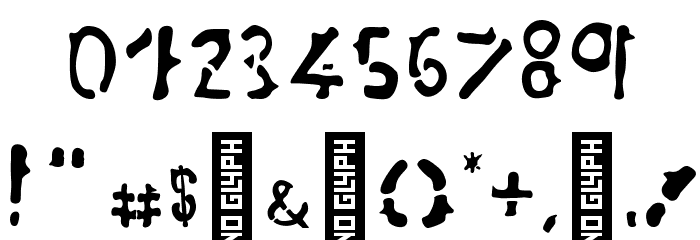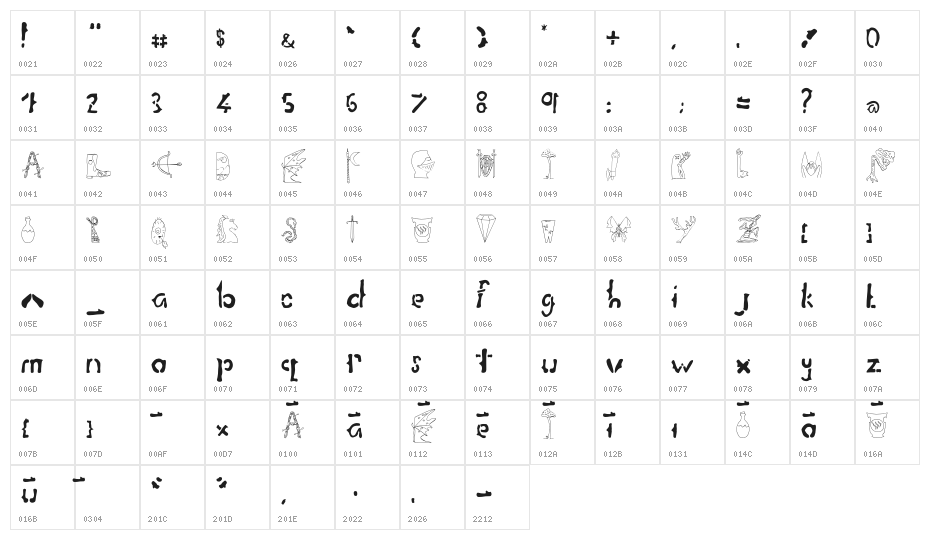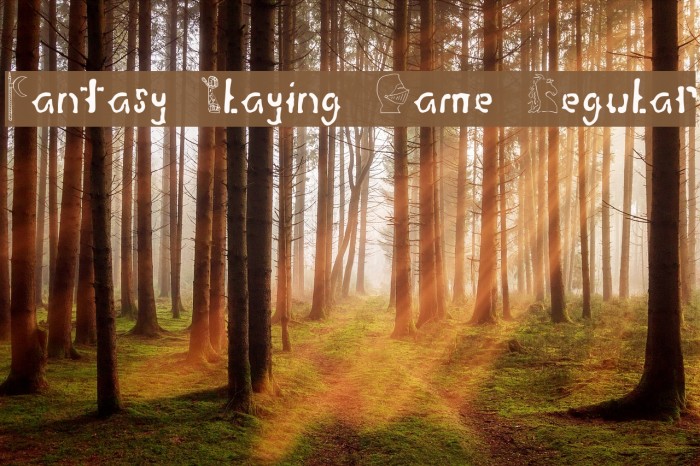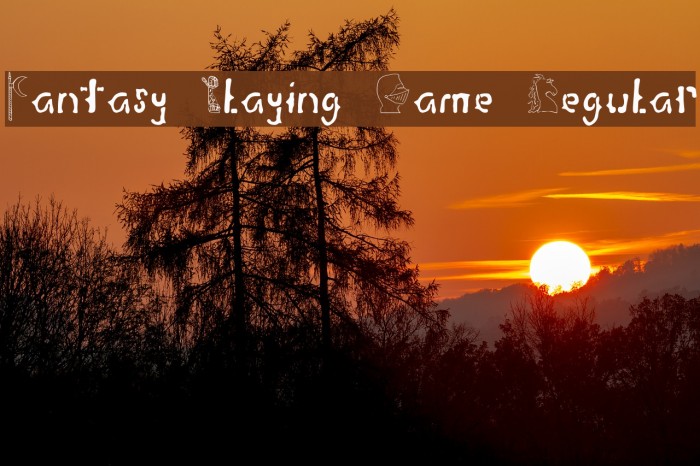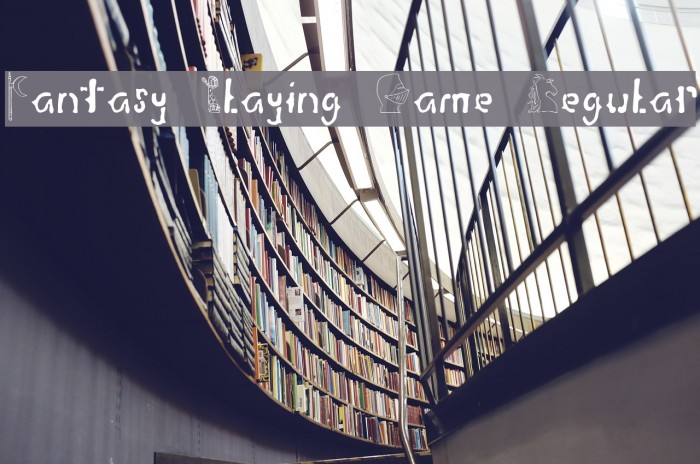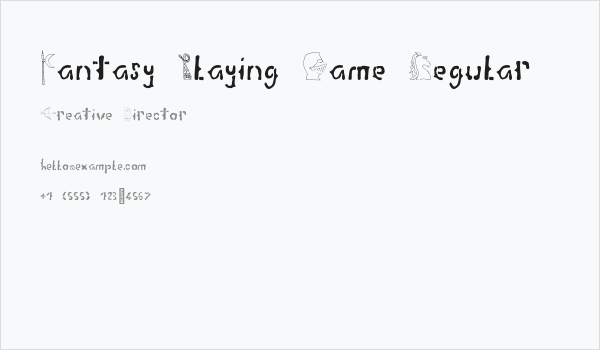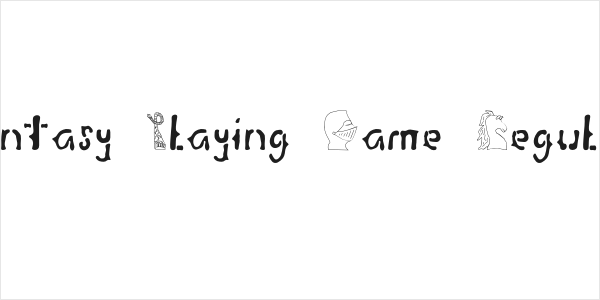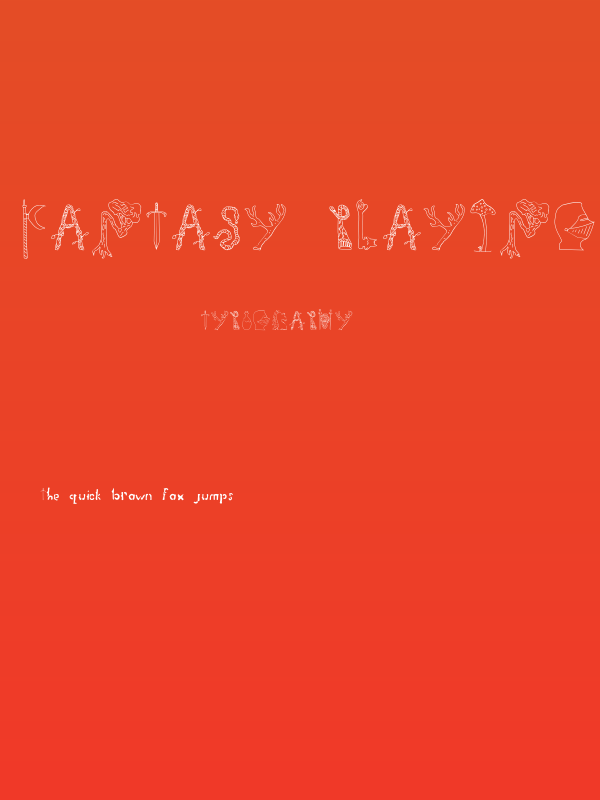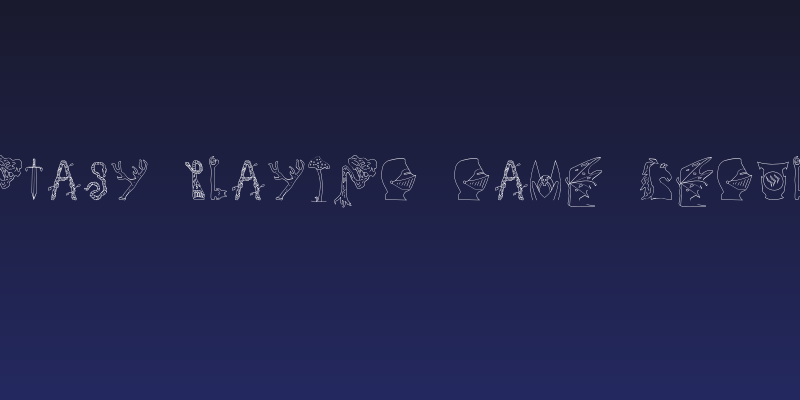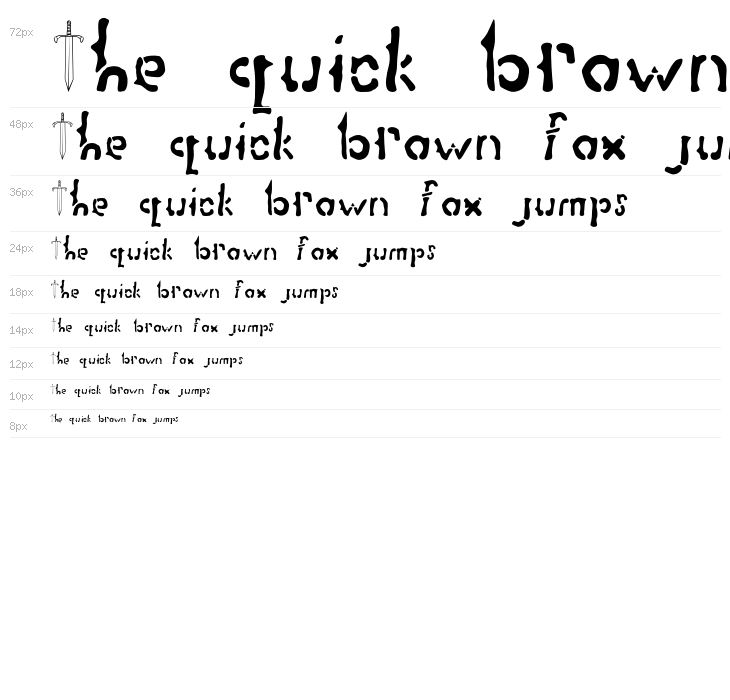
Fantasy Playing Game Regular Font
Fantasy Playing Game Regular Description
This font features a whimsical and imaginative design, incorporating elements of fantasy and adventure. Each uppercase letter is uniquely crafted with illustrations that evoke themes of magic, mythical creatures, and medieval iconography. The lowercase letters maintain a playful, hand-drawn style with irregular strokes and a slightly rough texture, adding to the font's charm. Numbers and special characters are similarly styled, with creative and unexpected details that enhance the overall fantasy theme. The font's artistic and decorative nature makes it ideal for projects that require a touch of creativity and fantasy.
| Overall Style | Decorative, Fantasy |
| Proposed Projects | Ideal for fantasy-themed games, book covers, posters, and creative projects requiring a magical touch. |